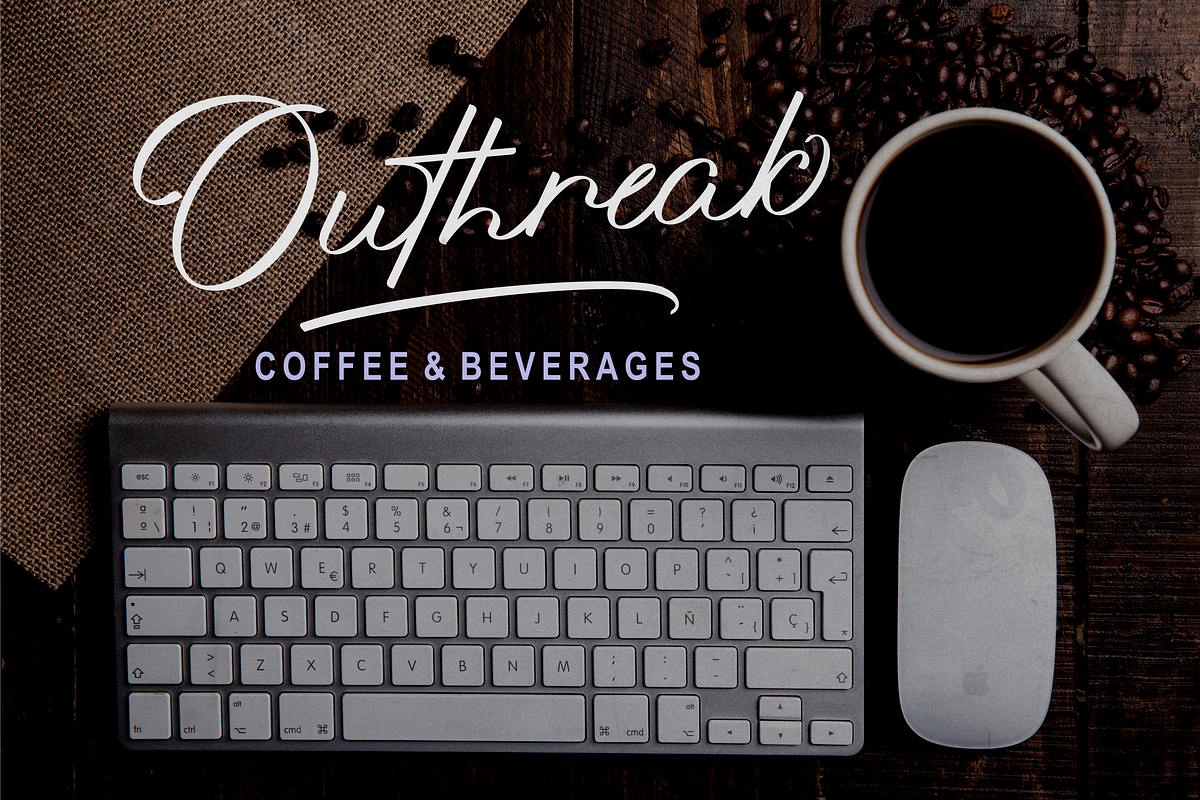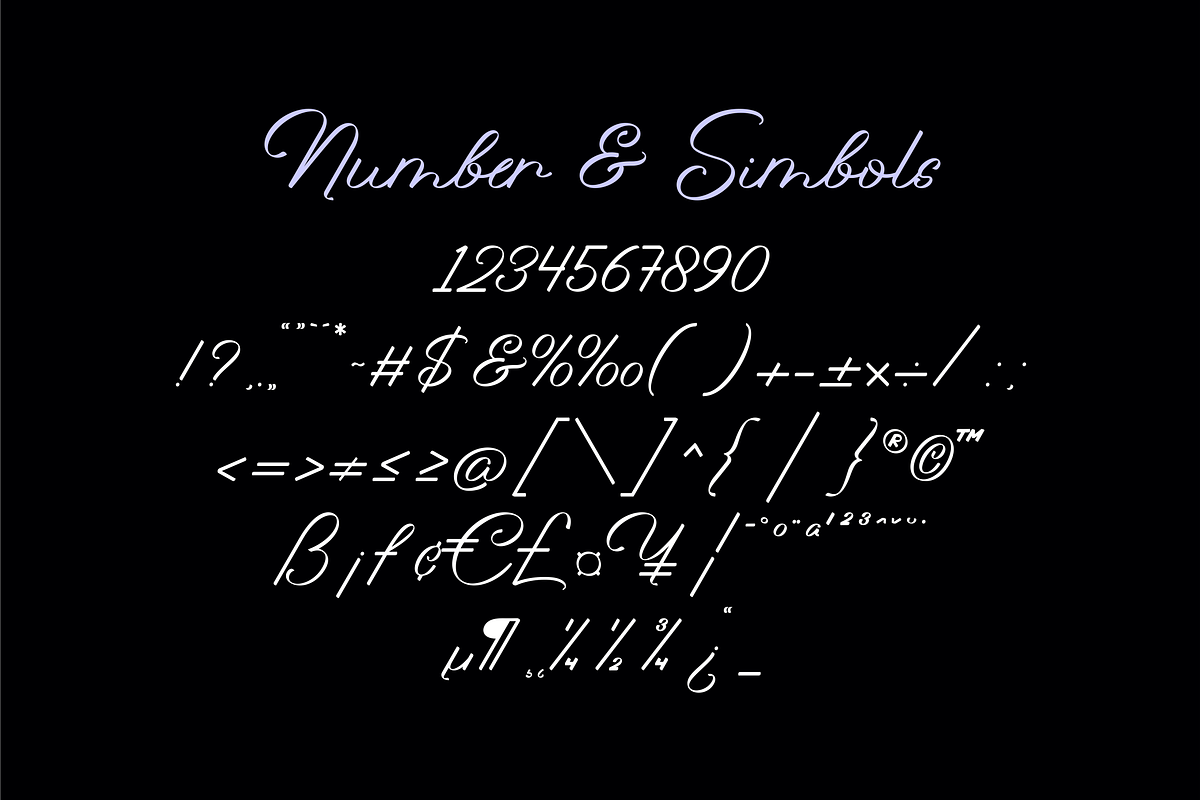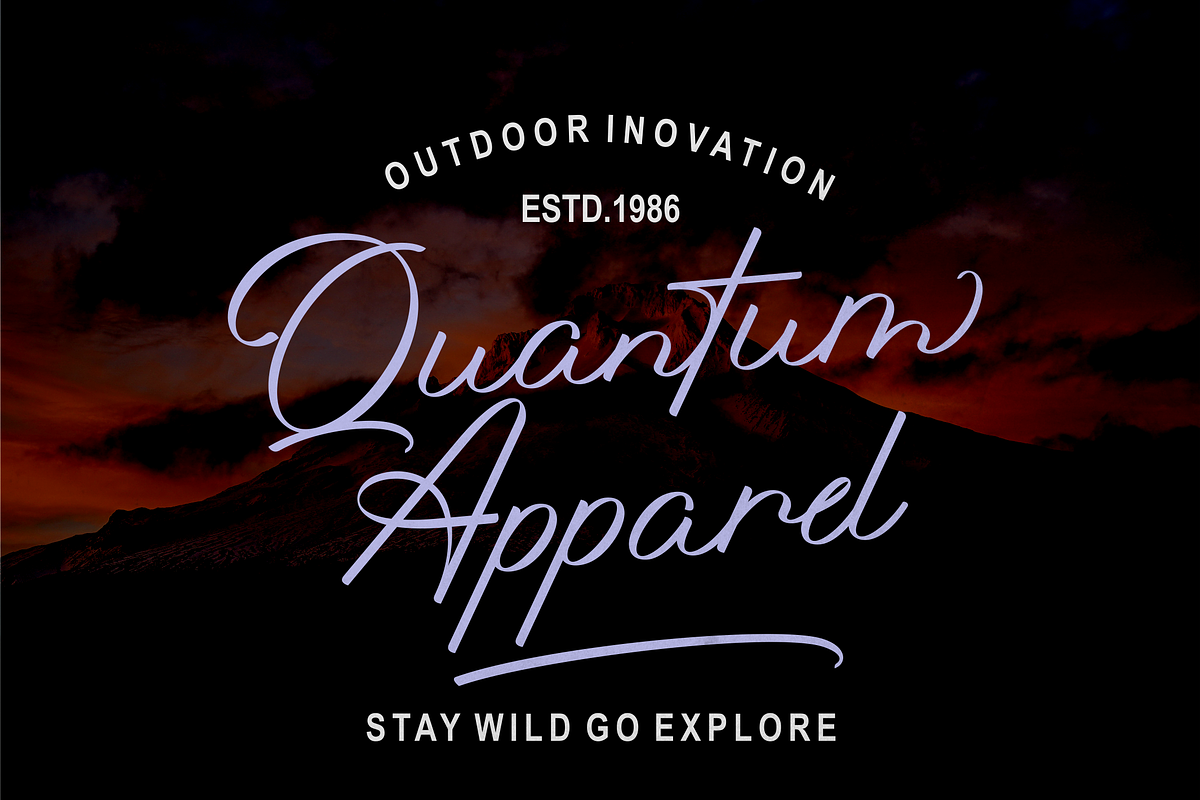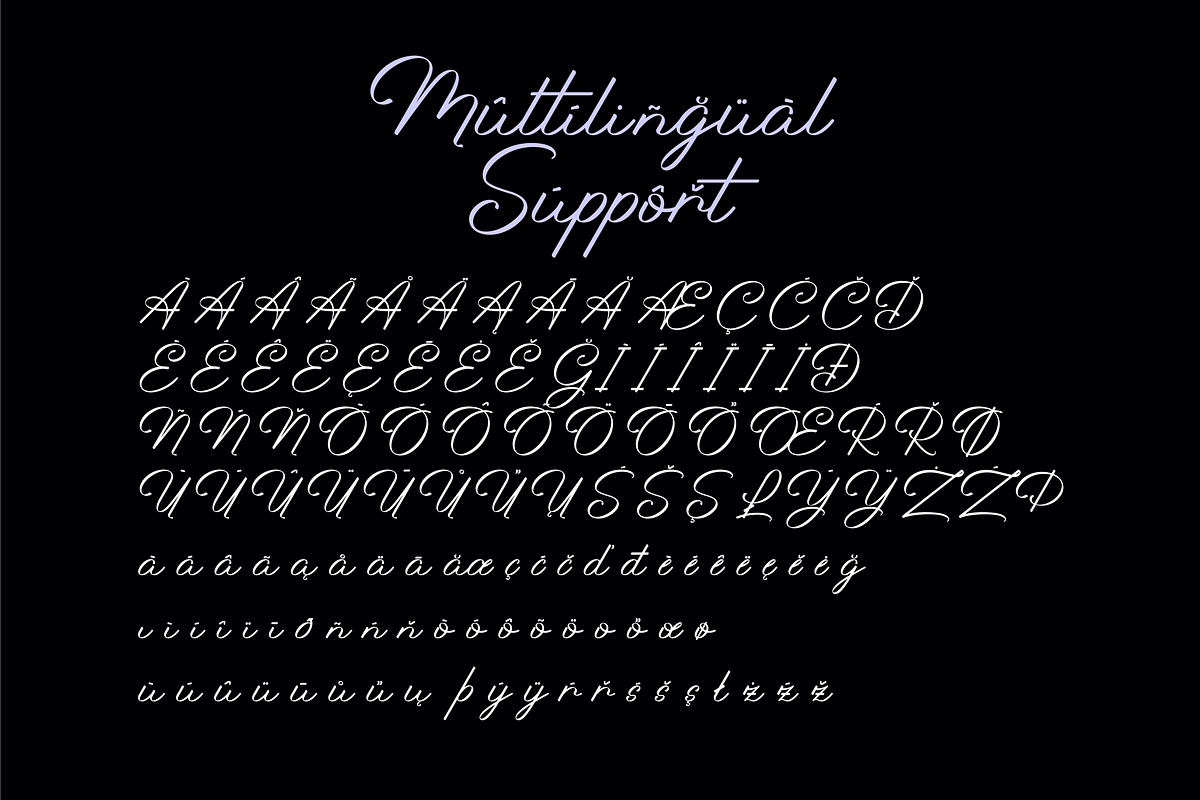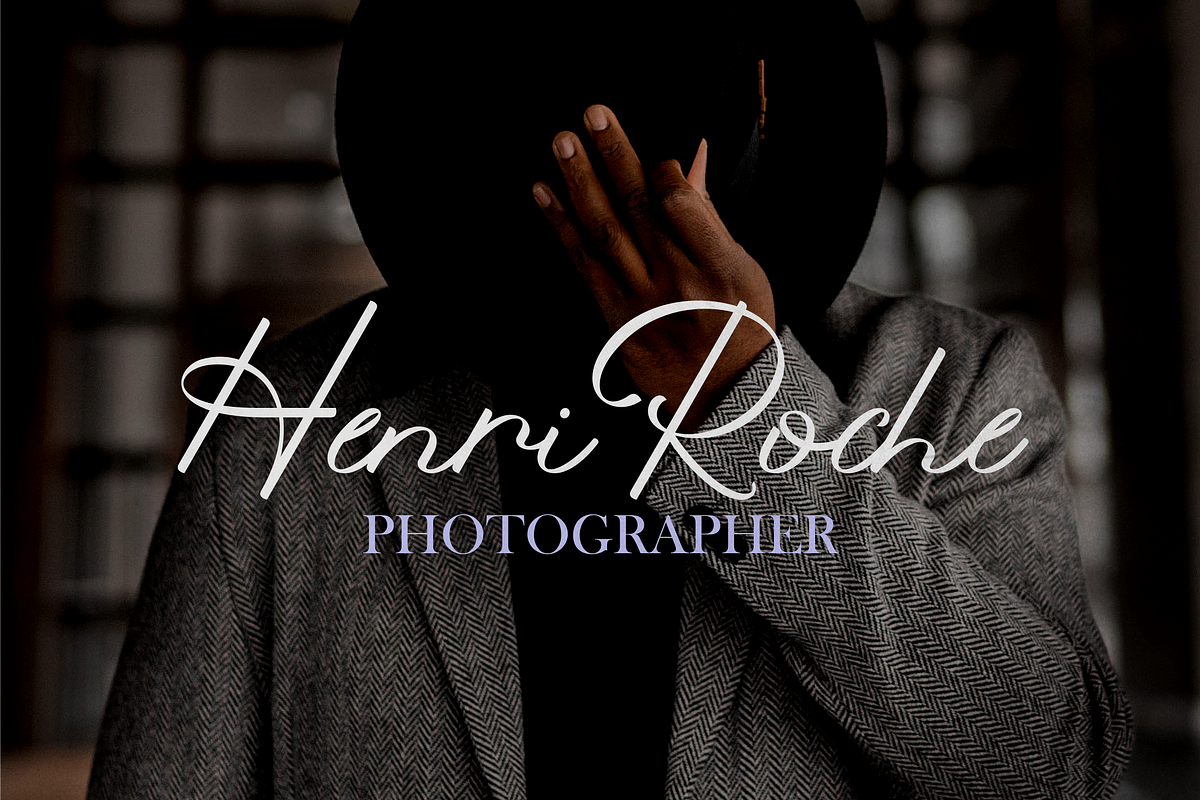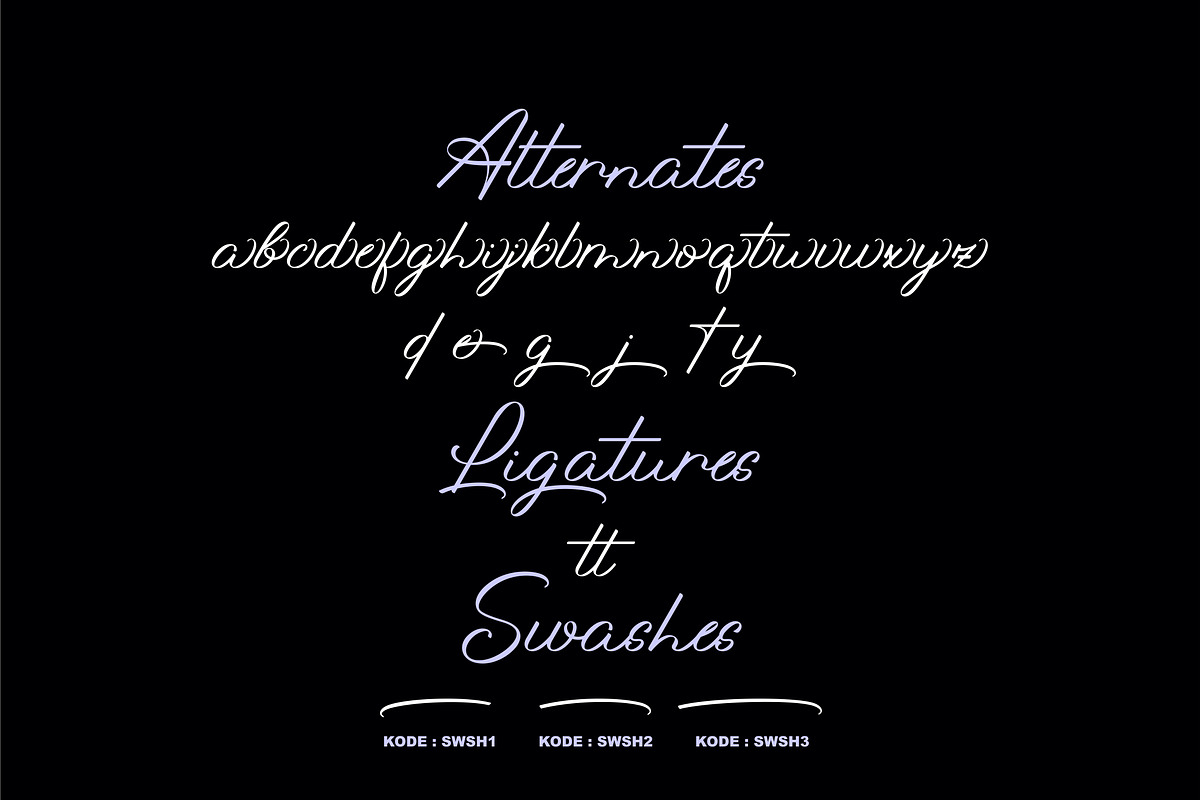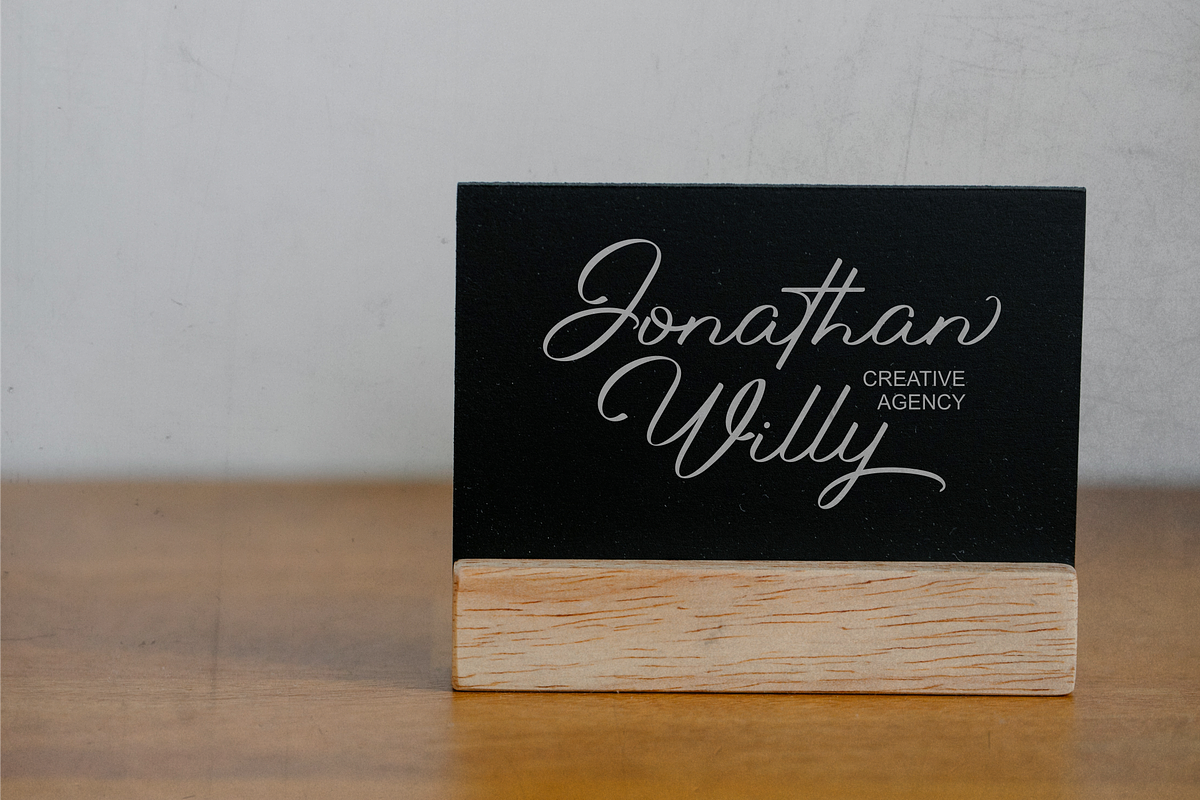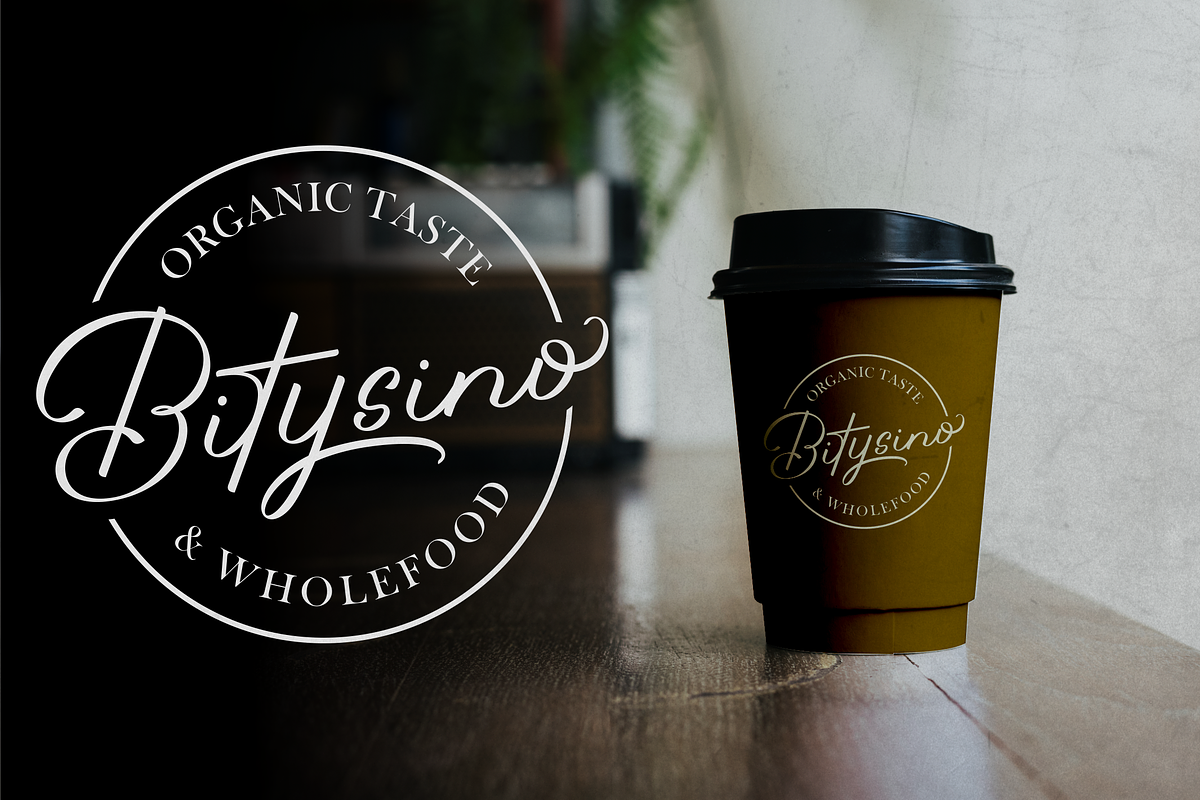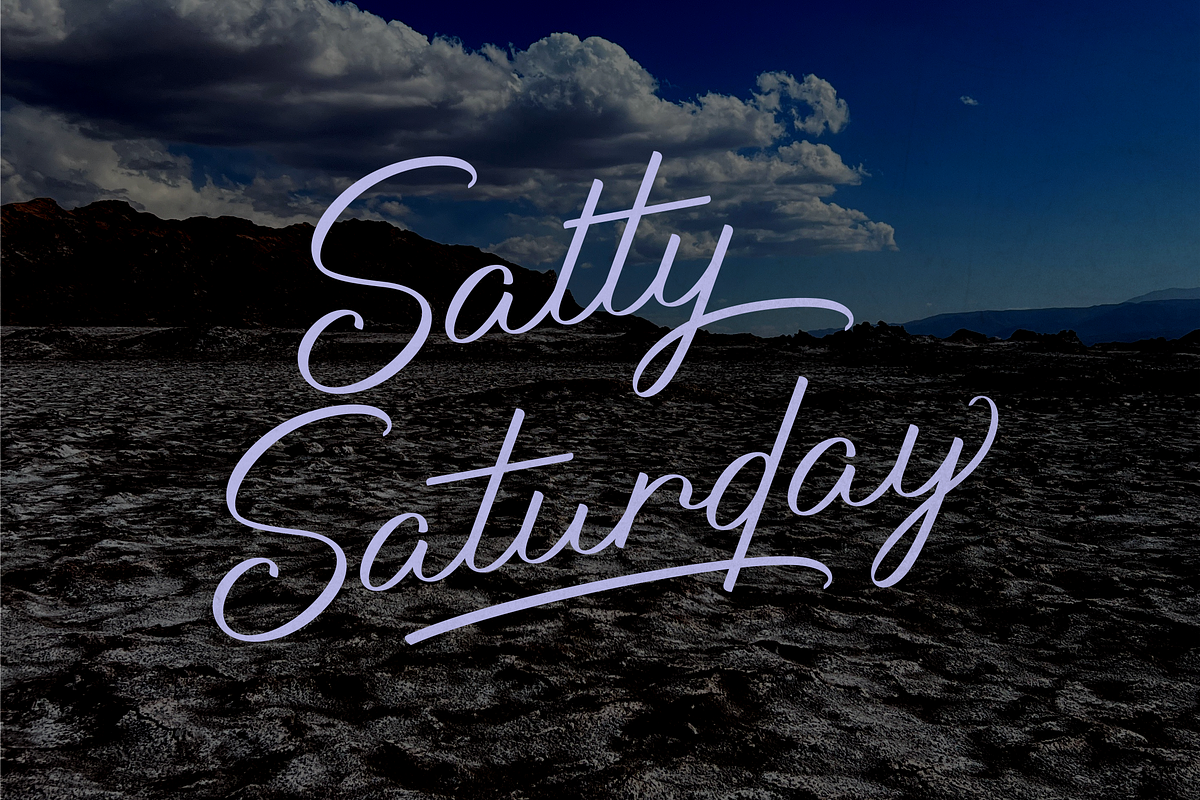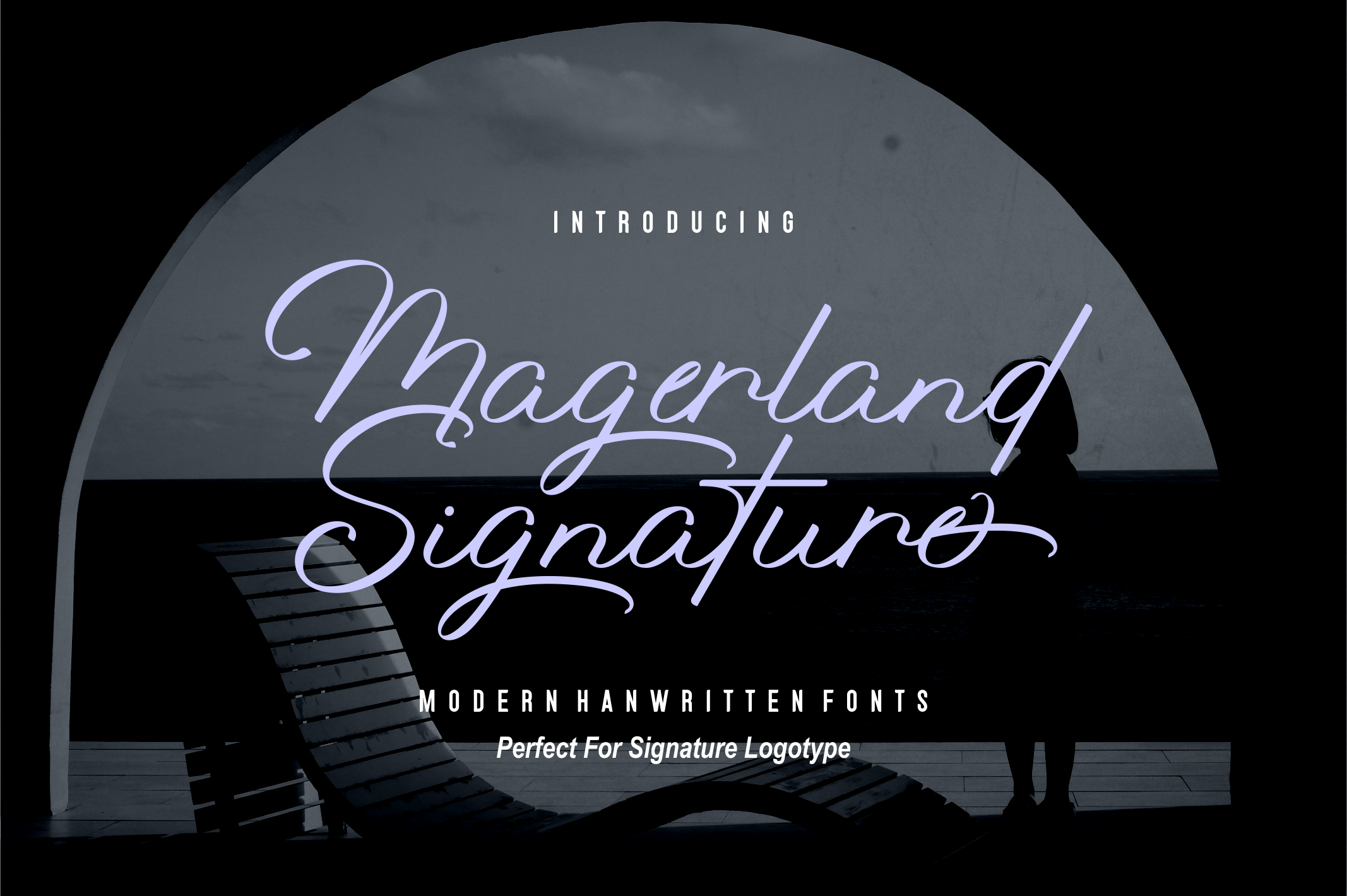
Magerland Handwritten Signature Font
Magerland is a handwritten signature script with a natural & stylish flow. This collection of scripts is perfect for personal branding. But, this works well for many applications. Everything from personal branding & wedding invitations to advertising could benefit from this collection of signature fonts.
These typefaces work well for many different aesthetics. They work well with something like 'cosmetics' for example but would also work well with Liquor Labels, Signage, & any type of signature-styled logo.